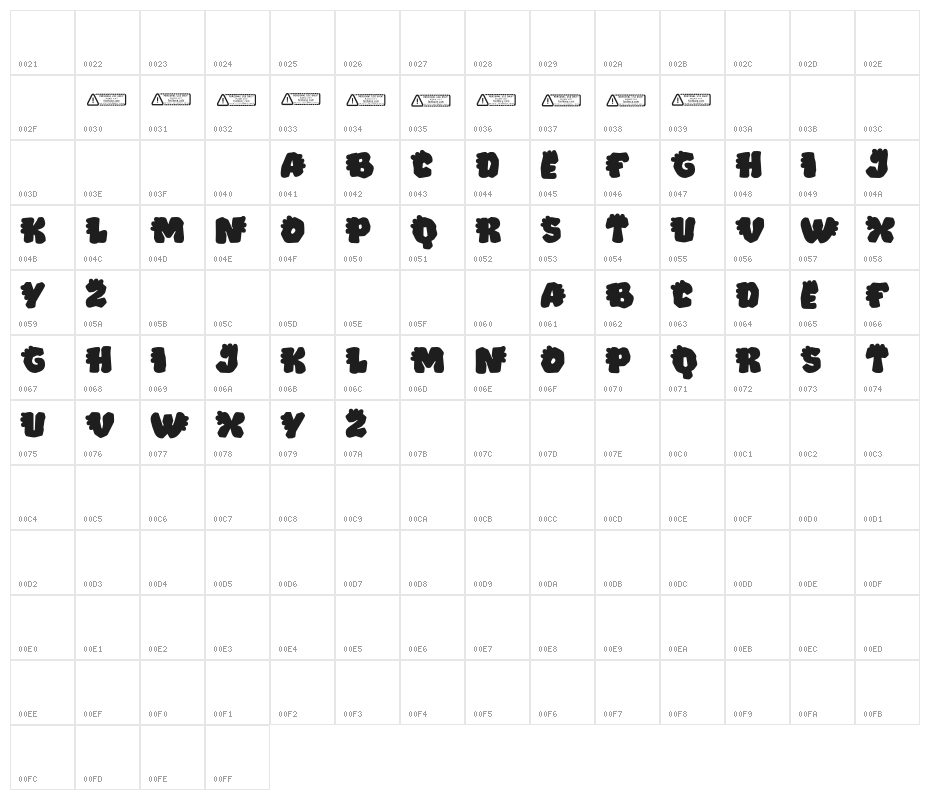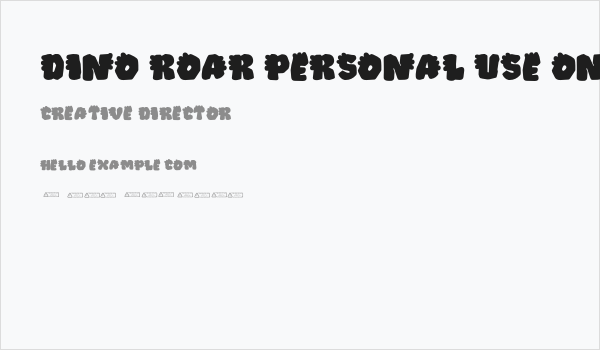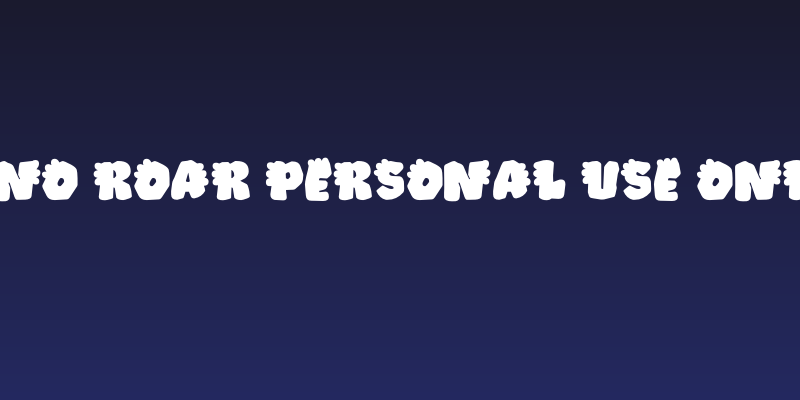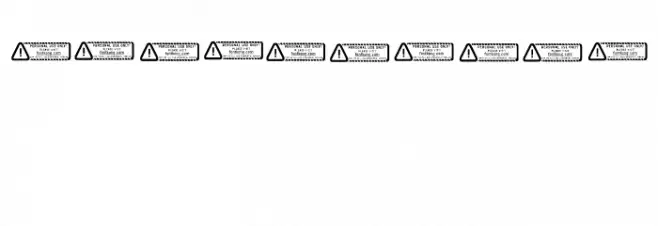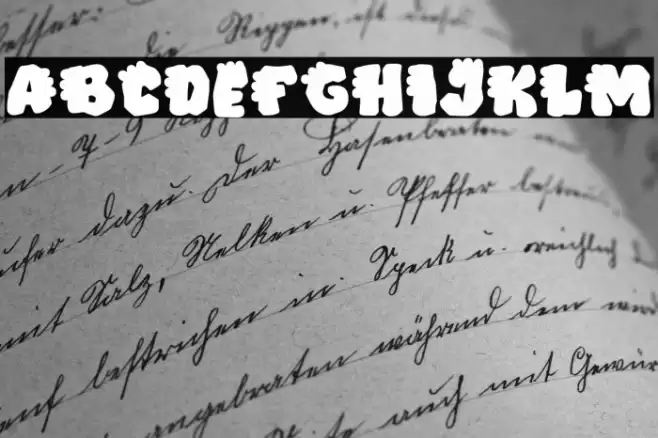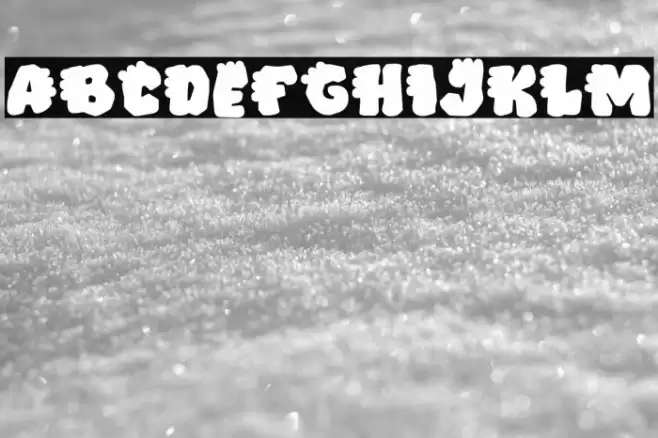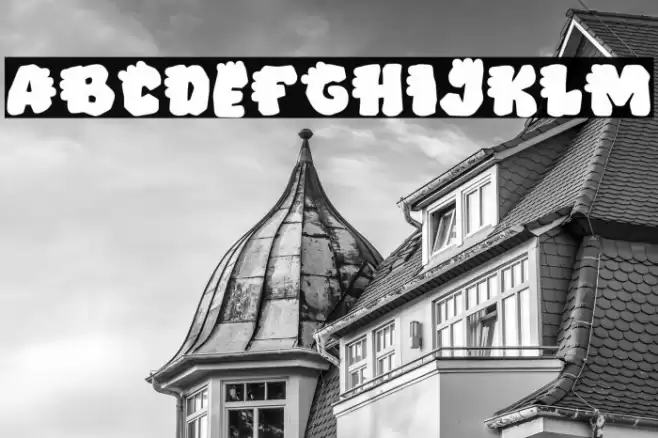
Dino Roar PERSONAL USE ONLY! Font
Dino Roar PERSONAL USE ONLY! Description
This playful and bold font features a chunky, whimsical design reminiscent of prehistoric themes. Each character is crafted with a unique, uneven outline that gives a sense of movement and fun. The letters are bold and have a cartoonish quality, making them stand out with a strong visual presence. The font's quirky style is perfect for capturing attention and adding a lively, energetic feel to any project. Its thick strokes and playful shapes make it ideal for creative and informal applications.
| Proposed Projects | Ideal for children's book covers, playful posters, themed party invitations, and educational materials. |